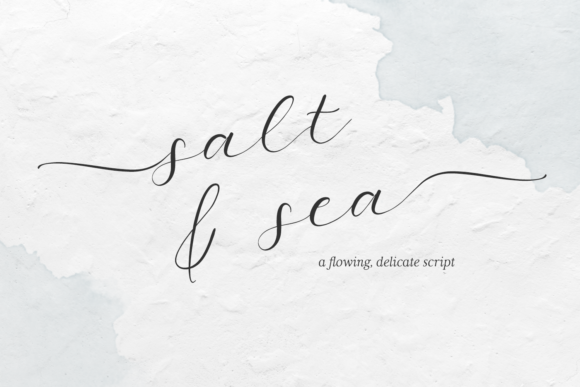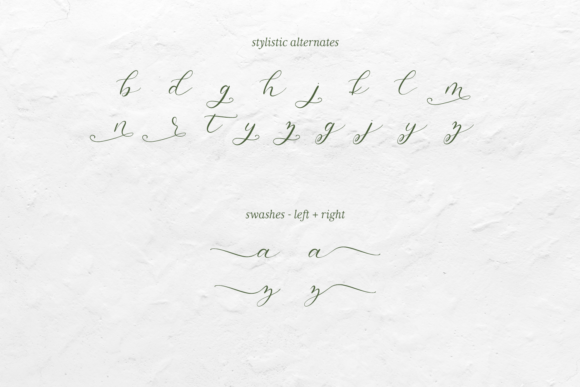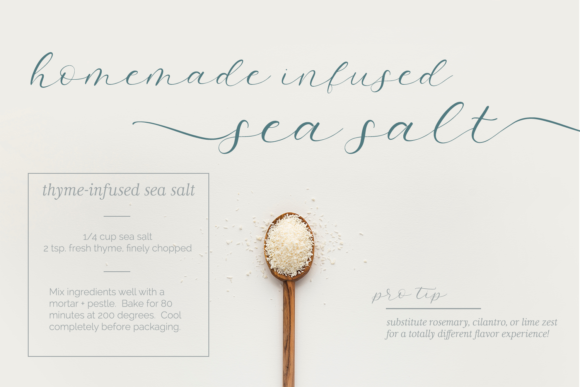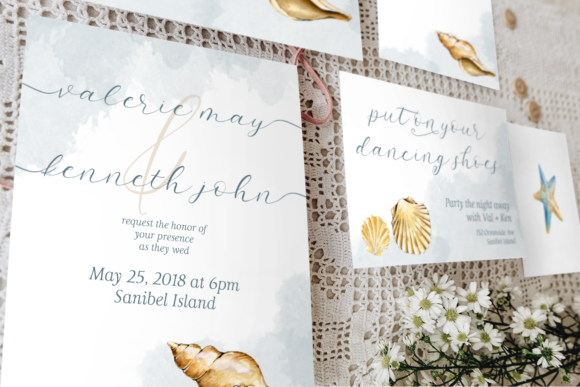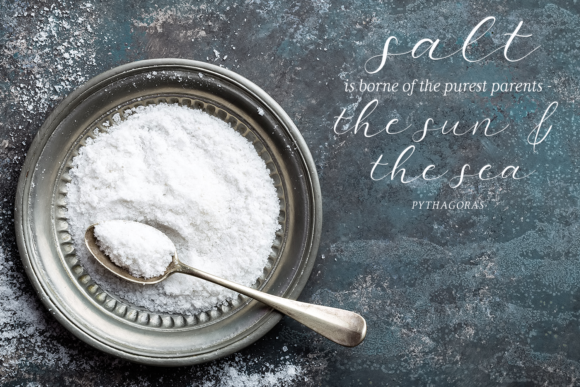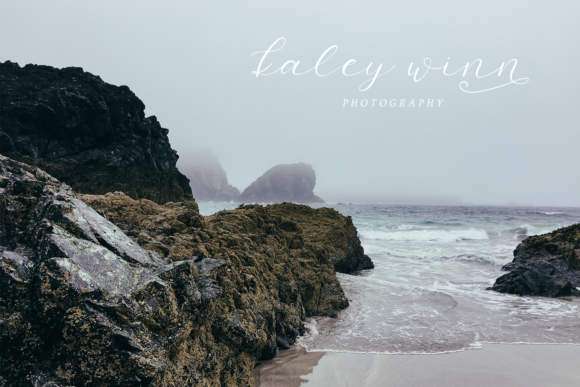
Salt and Sea Font
About Salt and Sea Font
Salt & Sea Script is a wispy and feminine script font, inspired by the faint, delicate salty air and rolling sea. It’s the perfect addition to a luxurious, feminine brand, wedding invitations and it would also make a perfect, subtle yet professional watermark for images.